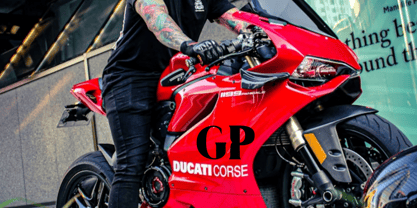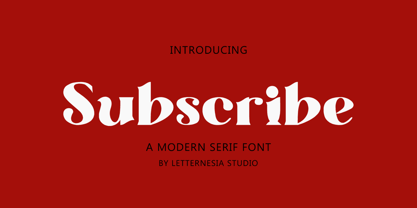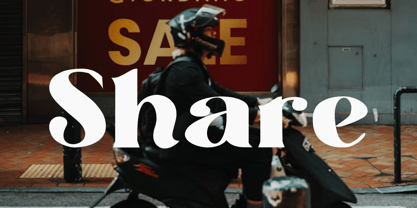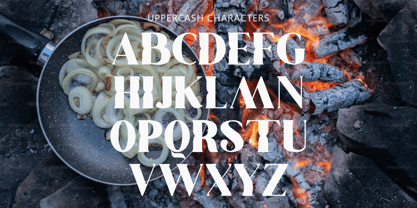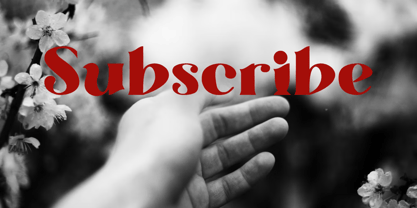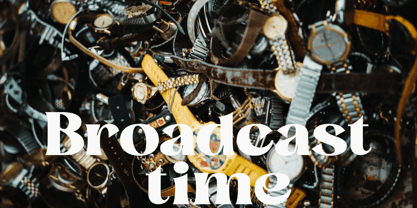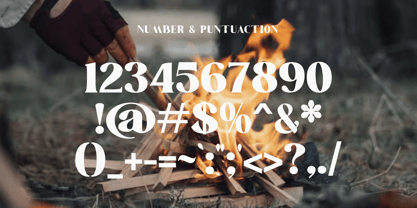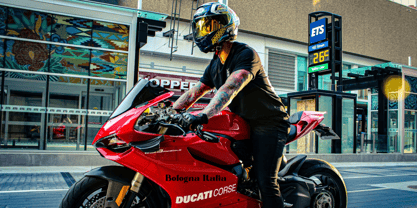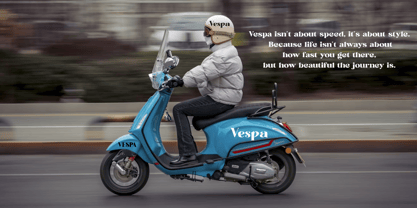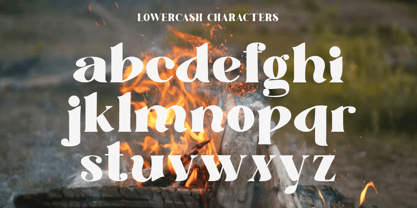
Subscribe
The Subscribe Font Family was designed by Ta Siyo and published by Letternesia studio. Subscribe contains 1 styles. More about this family
Subscribe – A Modern & Friendly Display Font
Subscribe is a display font designed with a modern and friendly style, perfect for capturing attention in a wide range of creative projects. With bold yet soft letterforms, this font is ideal for branding, social media, promotional posters, and even YouTube thumbnails.
Its key characteristics include clean lines, smooth curves, and strong visual balance—making Subscribe the perfect choice for text that needs to stand out while remaining easy to read.Use Subscribe to bring a professional yet approachable feel to all your designs.